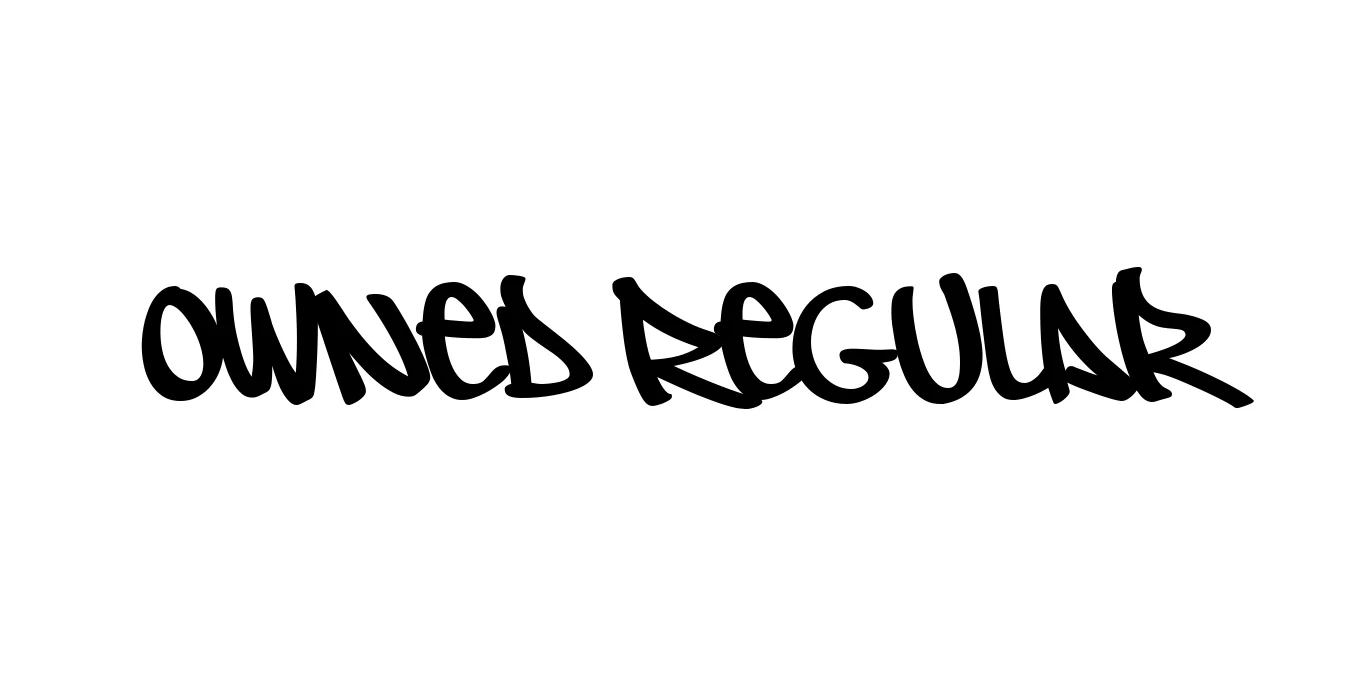
Owned Regular
Designed by Måns Grebäck
| Category | Script / Graffiti |
| Designer | Måns Grebäck |
Owned Regular is a high-energy, urban typeface designed by the prolific Swedish type designer Måns Grebäck. Inspired by the raw aesthetic of street culture and contemporary graffiti, this font features heavy, confident strokes that simulate manual marker writing. It was developed to bridge the gap between polished digital design and the gritty, spontaneous nature of street art, making it a powerful tool for visual communication that requires an assertive voice.
The font is characterized by its fluid ligatures and rhythmic character spacing, which contribute to its authentic hand-drawn appearance. Owned Regular has seen widespread adoption in the sports and lifestyle industries, particularly within sectors that value a rebellious or competitive edge. Its versatile nature allows it to function effectively across various mediums, from high-resolution print graphics to dynamic digital displays, ensuring a consistent and impactful brand identity.
Owned Regular Best Uses
Perfect for creating bold logos on apparel like hoodies, t-shirts, and hats.
Highly effective for hip-hop or rock album covers and promotional tour posters.
Adds an edgy and competitive feel to esports team logos and stream overlays.
Ideal for creating high-impact YouTube thumbnails and engaging social media headers.